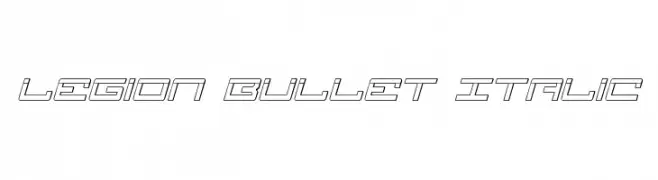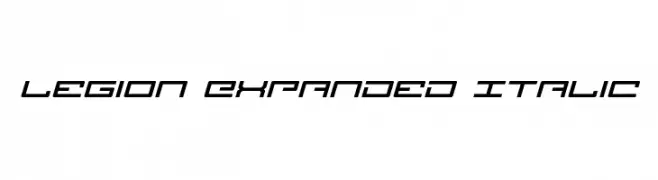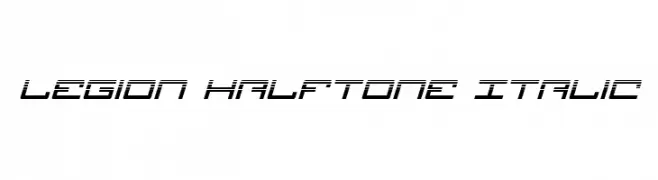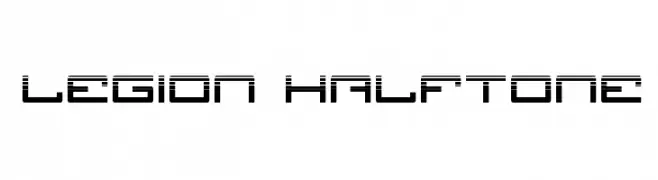
A futuristic, angular, and italic font with outlined characters.
A futuristic, industrial font with geometric shapes and intricate line patterns.
A futuristic, multi-line italic font with a dynamic and geometric design.
A futuristic, angular, condensed italic font with a modern edge.
A futuristic, expanded italic font with angular, geometric shapes.
A futuristic, segmented font with a digital and modern aesthetic.
A futuristic, italicized font with a gradient stripe effect.
A futuristic font with a halftone pattern and geometric structure.
A futuristic, italicized font with a halftone effect and segmented lines.
A futuristic, geometric font with sharp angles and a digital aesthetic.